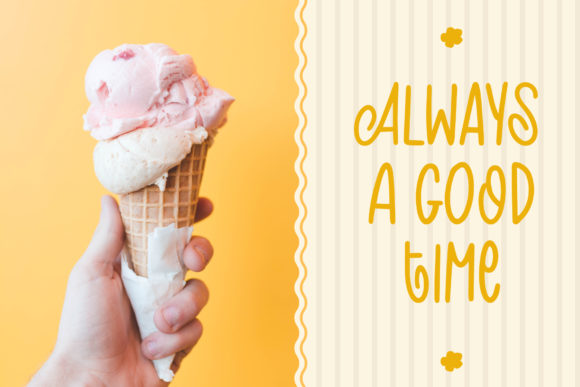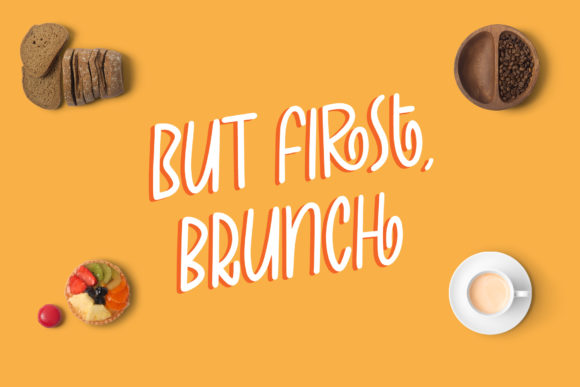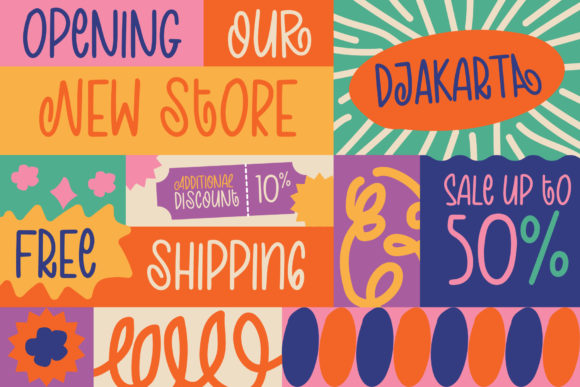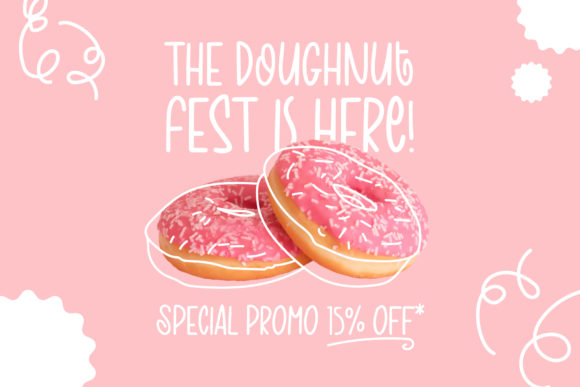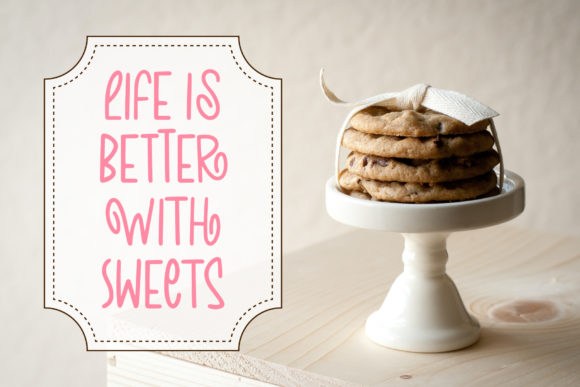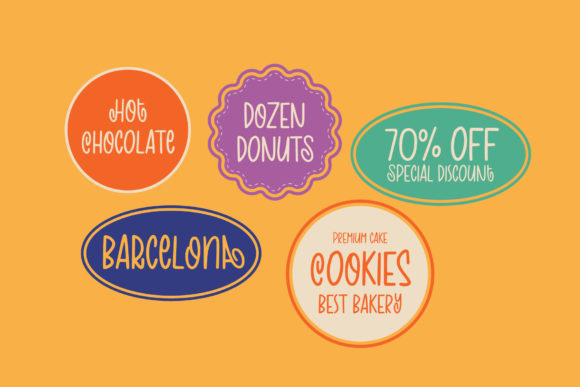
Creamy Wonder Font: The Ultimate Display Font for Creative Projects
Are you tired of using the same old fonts for your creative projects? Do you want to add a touch of uniqueness and personality to your designs? Look no further than the Creamy Wonder Font! This adorable display font is sure to make your projects stand out and leave a lasting impression.
What is Creamy Wonder Font?
Creamy Wonder is a cute and incredibly unique display font that is perfect for adding a touch of whimsy to your designs. With its creamy texture and smooth lines, this font is sure to capture the attention of your audience and make your projects shine. Whether you’re a designer, crafter, or DIY enthusiast, Creamy Wonder Font is a must-have in your font collection.
Features of Creamy Wonder Font
- Unique and Creative Design: Creamy Wonder Font boasts a one-of-a-kind design that is sure to make your projects stand out from the crowd.
- Cute and Whimsical: This font is perfect for projects that require a touch of playfulness and personality.
- Creamy Texture: The creamy texture of this font gives it a smooth and elegant feel that is perfect for a variety of design applications.
- Display Font: Creamy Wonder Font is specifically designed as a display font, making it perfect for headlines, titles, and other display text.
Uses for Creamy Wonder Font
Creamy Wonder Font is a versatile font that can be used in a variety of creative projects, including:
- Graphic Design: Use Creamy Wonder Font to add a touch of personality to your graphic design projects, such as brochures, flyers, and posters.
- Crafting: This font is perfect for crafters who want to add a personal touch to their projects, such as handmade cards, scrapbooking, and DIY signs.
- Digital Design: Use Creamy Wonder Font in your digital designs, such as social media graphics, blog posts, and website headers.
- Branding: This font is perfect for businesses that want to add a touch of personality to their branding, such as logos, packaging, and advertising materials.
Tips for Using Creamy Wonder Font
Here are a few tips for using Creamy Wonder Font in your creative projects:
- Use it as a Headline Font: Creamy Wonder Font is perfect for headlines and titles, so use it to grab the attention of your audience.
- Pair it with Other Fonts: Experiment with pairing Creamy Wonder Font with other fonts to create a unique and visually appealing design.
- Use it in Combination with Images: This font looks great in combination with images, so try using it to add text to your photos or illustrations.
In conclusion, Creamy Wonder Font is a unique and versatile display font that is perfect for adding a touch of personality to your creative projects. With its creamy texture and smooth lines, this font is sure to capture the attention of your audience and make your projects stand out. Whether you’re a designer, crafter, or DIY enthusiast, Creamy Wonder Font is a must-have in your font collection.